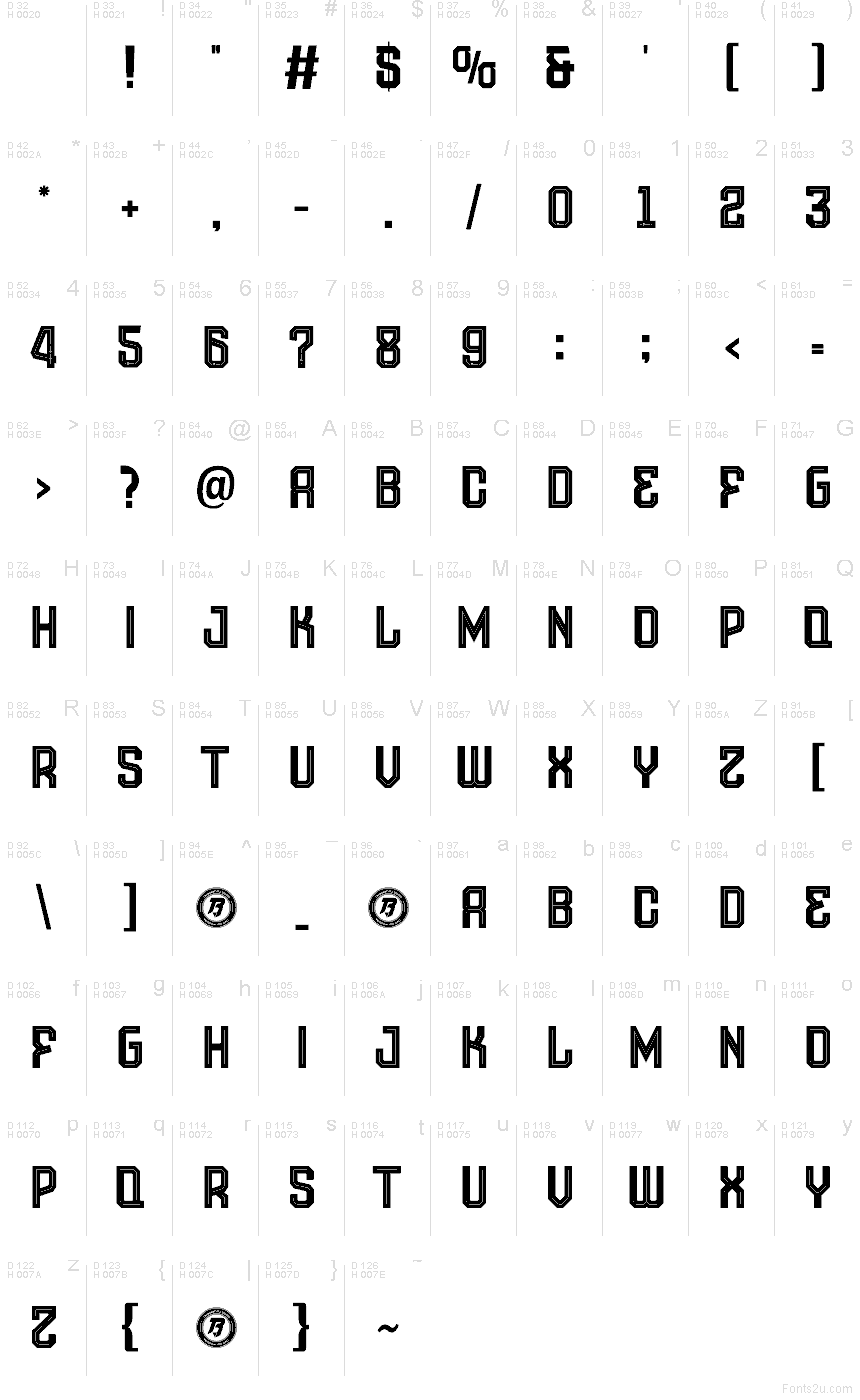
Eindhoven III font by Muhammad Afif Ersya of Trequartista Studio is a free techno font with a bold, circuit-board backbone and squared-off geometry that feels engineered, not drawn. Its inky double-line construction creates a built-in “neon trace” effect, so titles look layered and dimensional even in flat black. Tight corners and steady rhythm keep it crisp on dark UI mockups, sci‑fi posters, or anything that wants a clean, mechanical pulse.
Using Eindhoven III, you’ll get instant attitude on game logos, esports branding, event flyers, album art, tech product packaging, and futuristic social headers—anywhere a headline needs to snap. This free font also shines on signage-style wordmarks and motion graphics where the outlined shapes read fast. Pair it with a plain grotesk sans for body copy, and give Eindhoven III a little extra tracking at larger sizes to let those angular channels breathe.